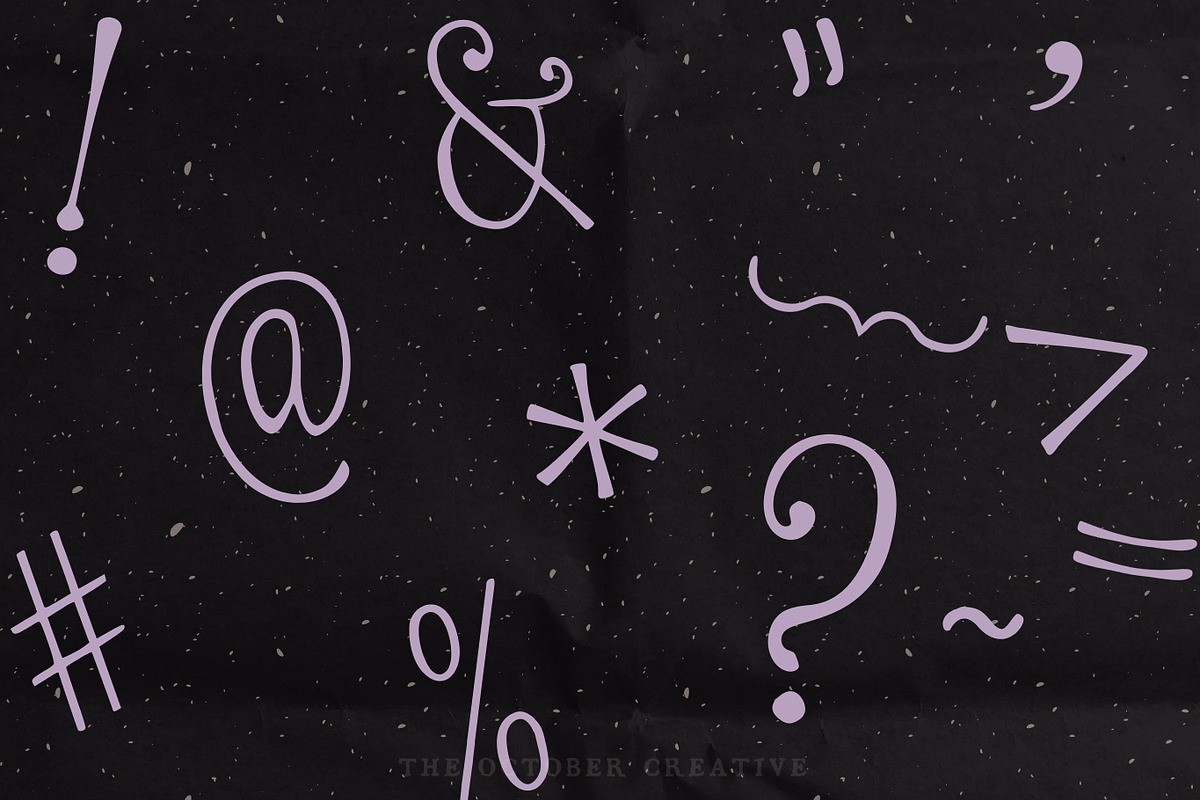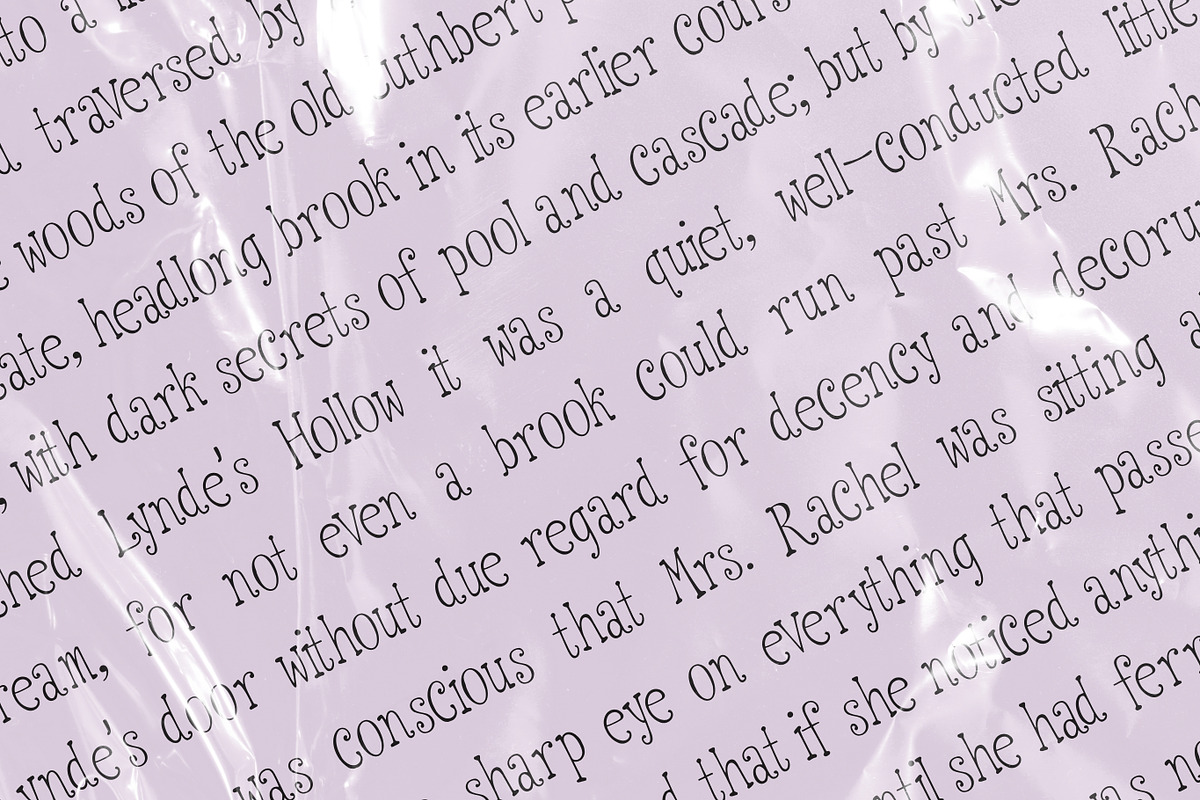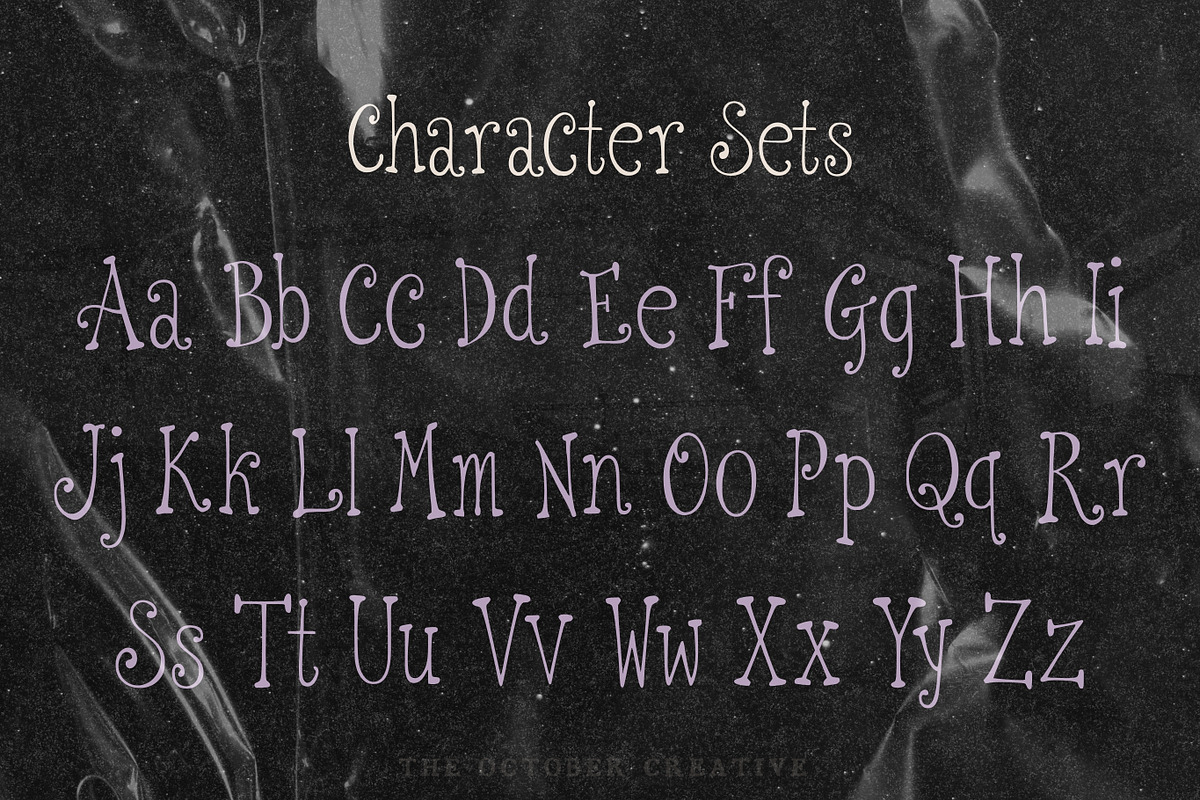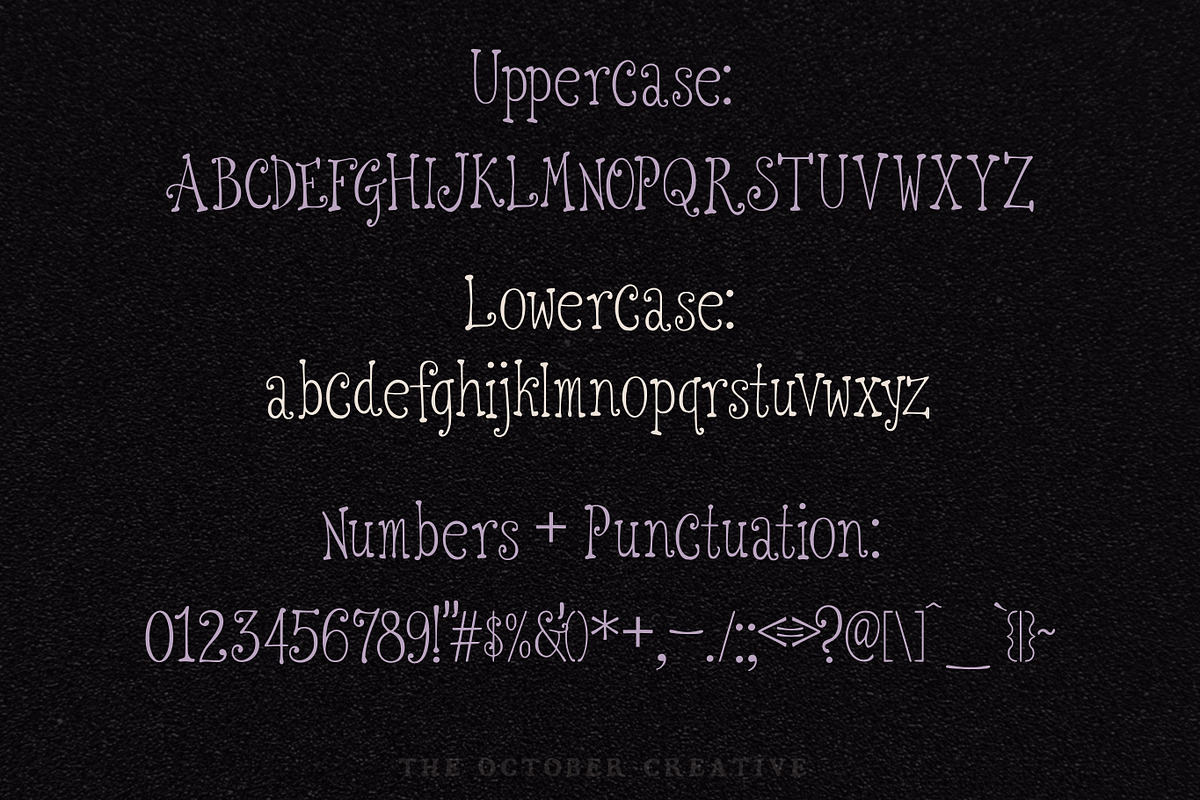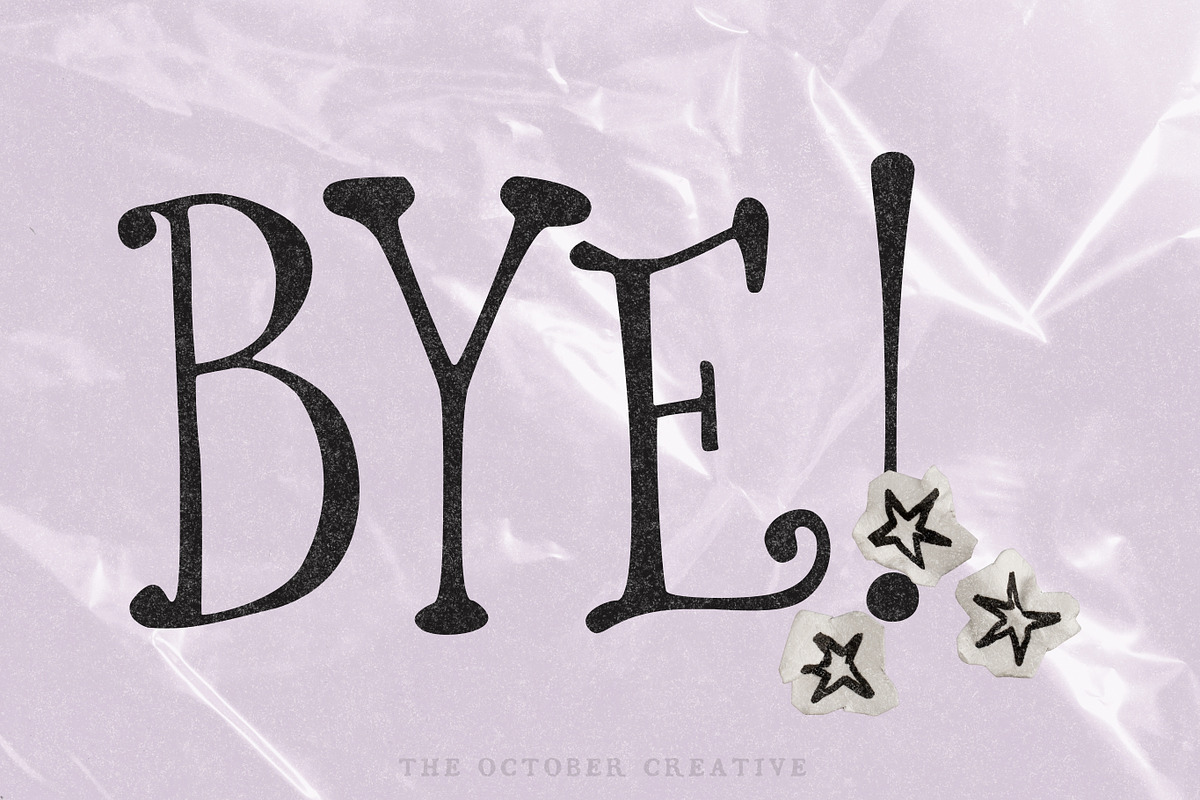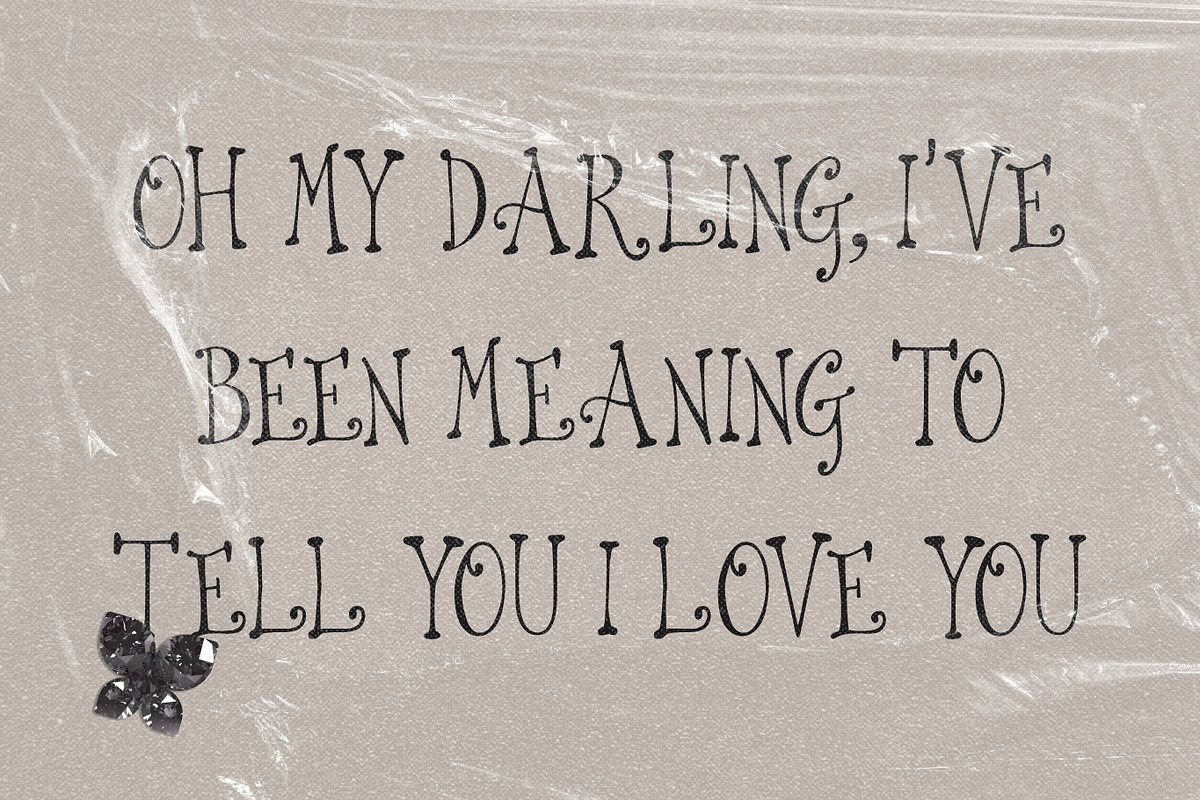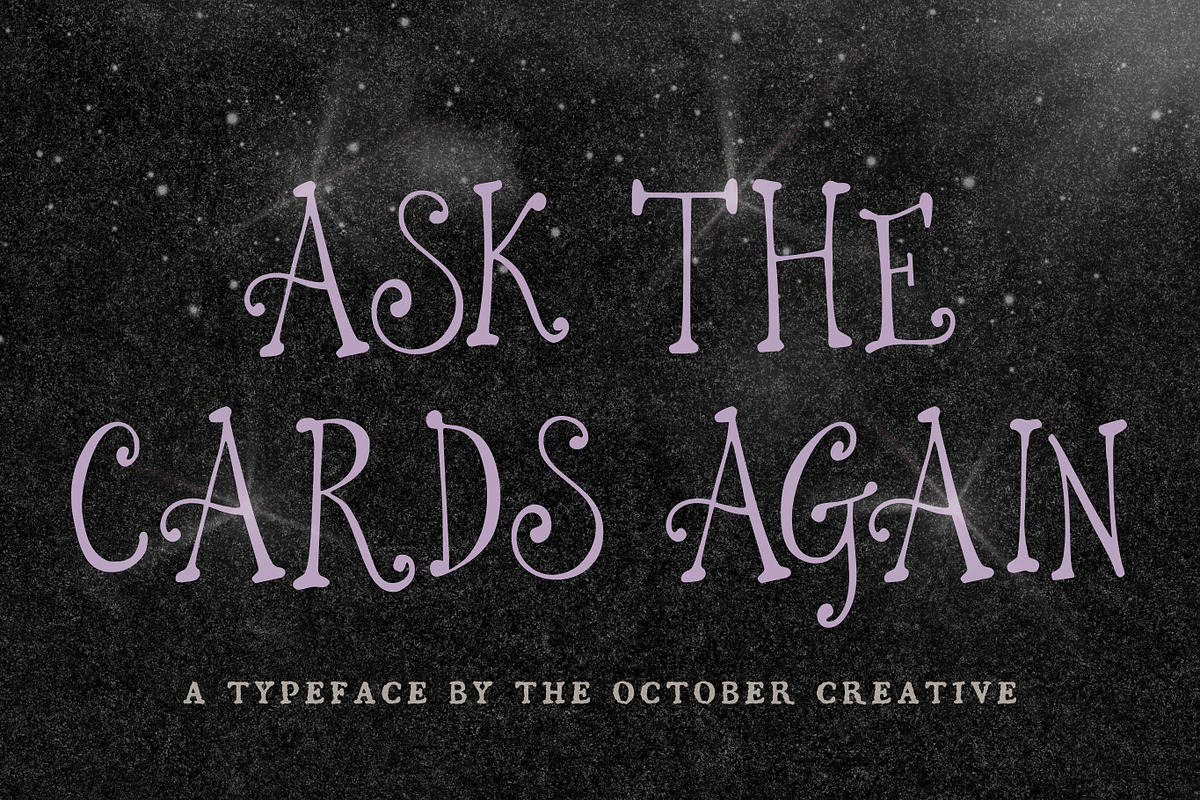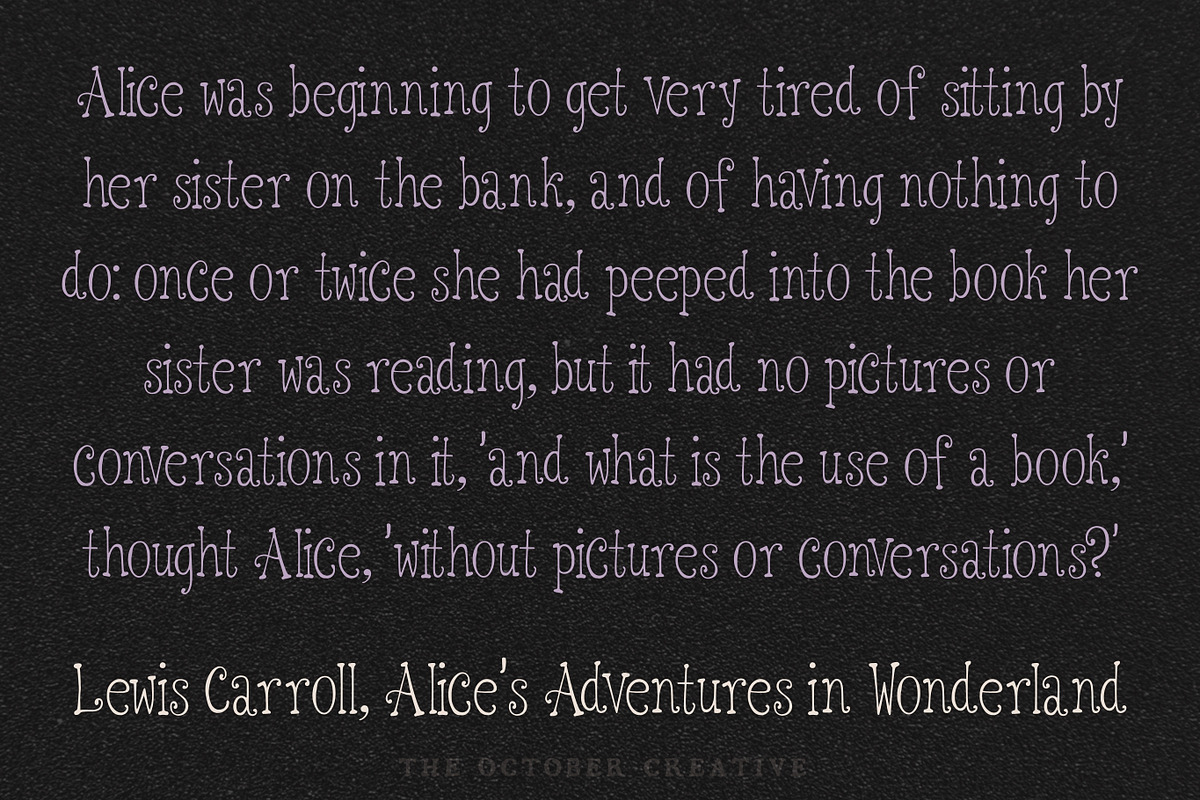
Ask the Cards Again Whimsical Serif
Ask the Cards Again is a fortune teller serif font with tall, curly capitals and a light, upright lowercase. It fits tarot and oracle card titles, astrology prints, witchy party invitations, and candle labels.
CHARACTER SET
Uppercase A to Z, lowercase a to z, numerals 0 to 9, and every standard keyboard punctuation mark and symbol: ! " # $ % & ' ( ) * + , - . / : ; < = > ? @ [ \ ] ^ _ ` { | } \~
Curly quotes and apostrophes (‘ ’ “ ” ‚ „), en and em dashes, an ellipsis, and a bullet.
Accented letters: À Á Â Ã Ä Å Ç È É Ê Ë Ì Í Î Ï Ñ Ò Ó Ô Õ Ö Ù Ú Û Ü and their lowercase forms.
LANGUAGES SUPPORTED
English, plus the accented vowels, Ñ, and Ç used in names and everyday words in Spanish, French, Italian, Portuguese, German, and Dutch. Not included: ß, Æ, Ø, Œ, and the upside-down ¿ and ¡.
SPECIAL CHARACTERS